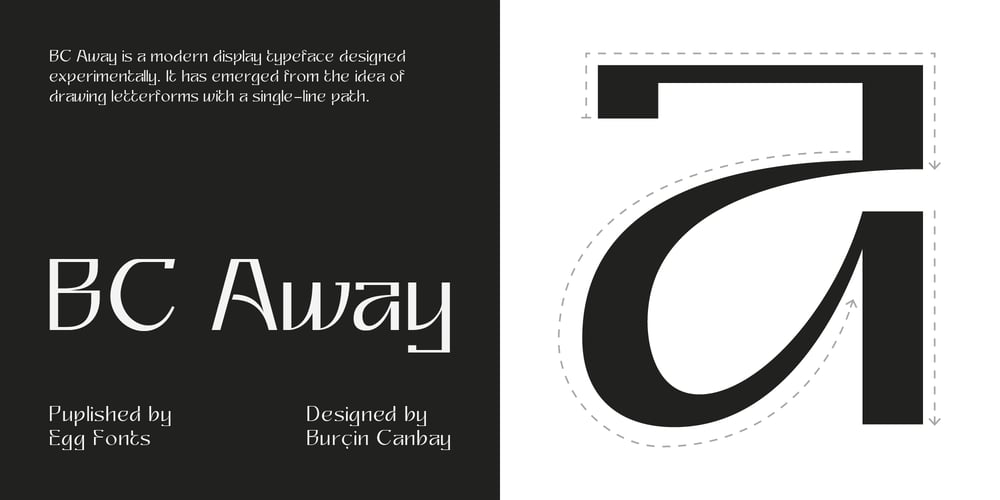
BC Away
BC Away font
BC Away Font Family was designed by Burçin Canbay and published by Egg Fonts. BC Away contains 1 styles and family package options. BC Away is a display typeface. It has emerged from the idea of drawing letterforms with a single-line path. Thanks to this idea, the characters are designed out of standard and conventional forms. Character designs are a combination of sharp corners and smooth curves, at the same time keeping readability. Some parts have been left blank in accordance with the letter forms. The name ‘Away’ represents these blanks. Also, the word ‘a way’ refers to the design of letterforms using a single-way.